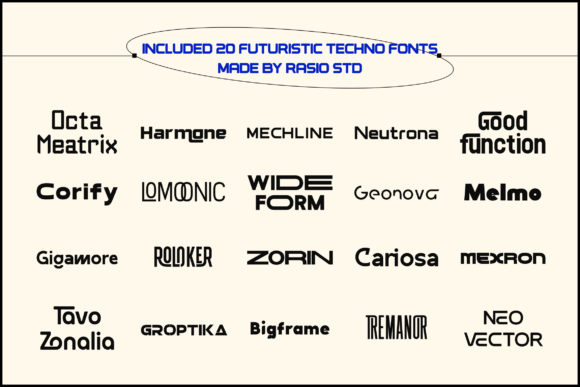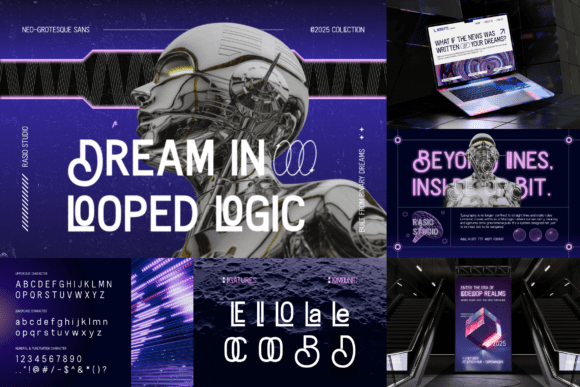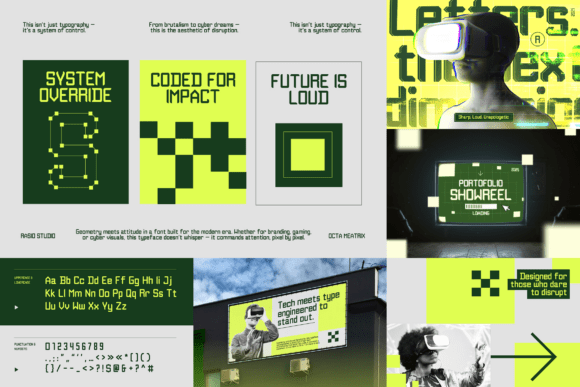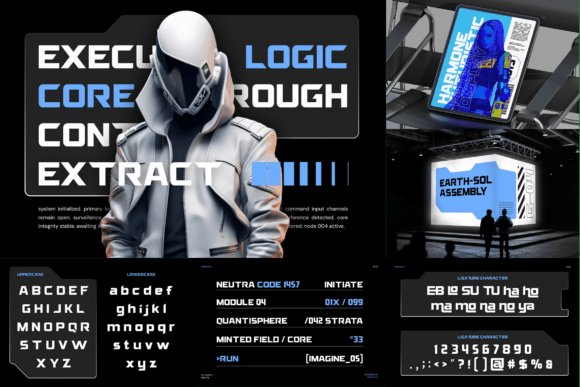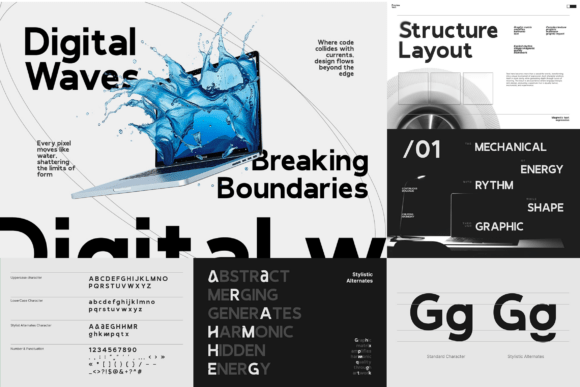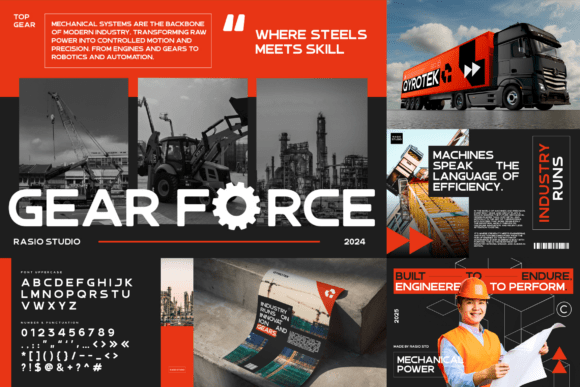
Step into the Future of Design with Futuristic Technology Font Bundle
I’ll never forget the struggle I faced while working on a futuristic tech project for a client. The brief was clear: create a visual identity that screams innovation and cutting-edge technology. But, as I dived into the design process, I hit a roadblock – finding the perfect font that embodies the futuristic vibe was a daunting task. That’s when I stumbled upon the Futuristic Technology Font Bundle by Rasio Studio, and it changed the game for me.
Unleashing the Power of Futuristic Typography
This curated collection includes 20 modern techno typefaces, each crafted with a futuristic approach featuring sharp geometry, digital-inspired forms, and experimental structures. The result? A strong and forward-thinking identity that’s perfect for designers, crafters, and creative hobbyists looking to elevate their visual projects.
Honest Review: The Good, the Bad, and the Quirky
- ✨ Versatility: This bundle works seamlessly across digital interfaces, branding, and cutting-edge visual projects.
- ✅ Wide Range of Styles: With 20 fonts to choose from, you’re bound to find the perfect fit for your project.
- 🤔 Learning Curve: With so many fonts and features to explore, it might take some time to get familiar with the entire bundle.
- ⚠️ Glyph Overload: Some fonts come with a vast array of glyphs, which can be overwhelming if you’re not used to working with OpenType features.
The Futuristic Technology Font Bundle was born out of Rasio Studio’s passion for innovation and design. The team drew inspiration from the latest technological advancements, combining them with traditional typography principles to create a truly unique and forward-thinking font collection.